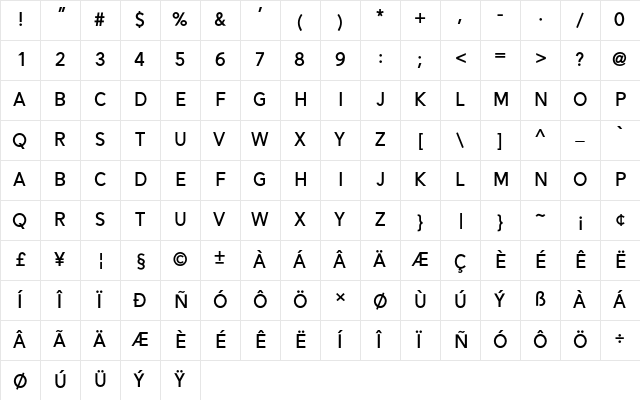
Alesand Bold
| Designer | Solidtype Studio |
Design Context for Alesand Typeface
Alesand is a composed and adaptable typeface that performs quietly and consistently across a wide range of design contexts. Its bold stroke weight gives it real presence on the page.
Pro Tip: Pair Alesand with a font of contrasting weight or personality to build a more expressive typographic hierarchy.